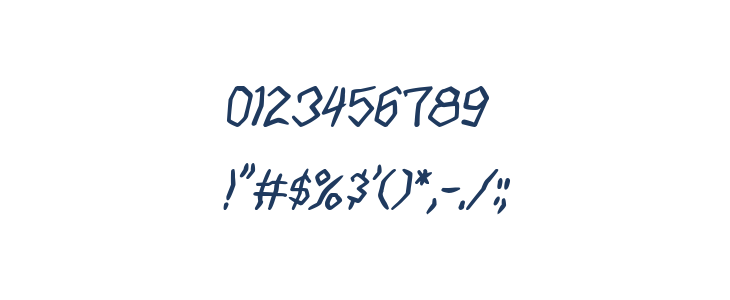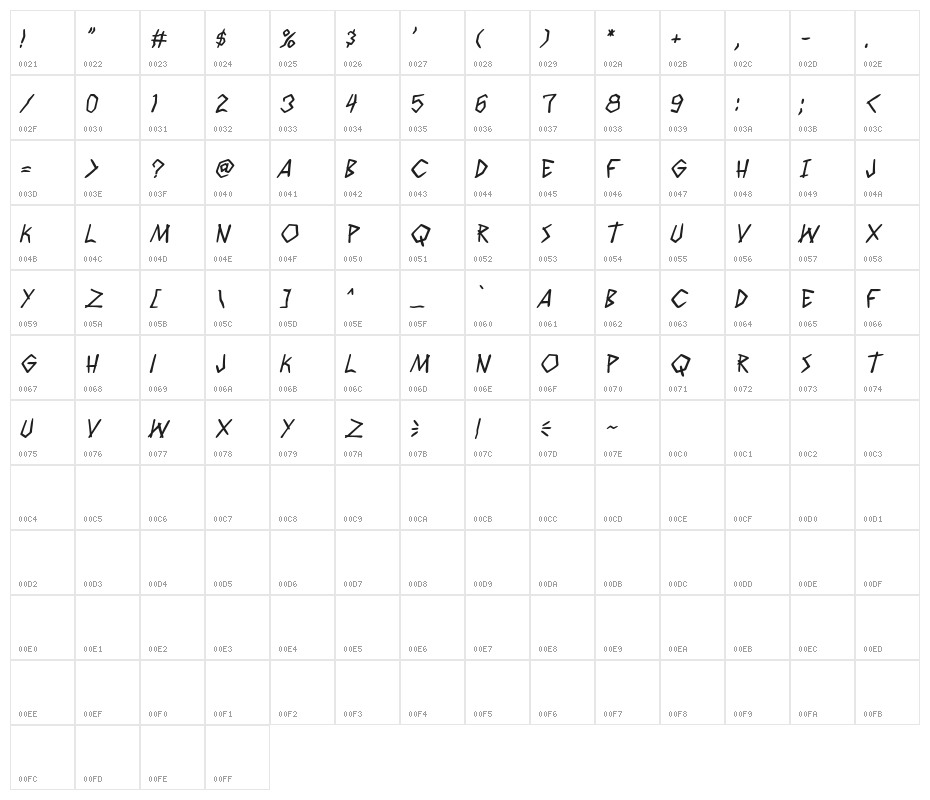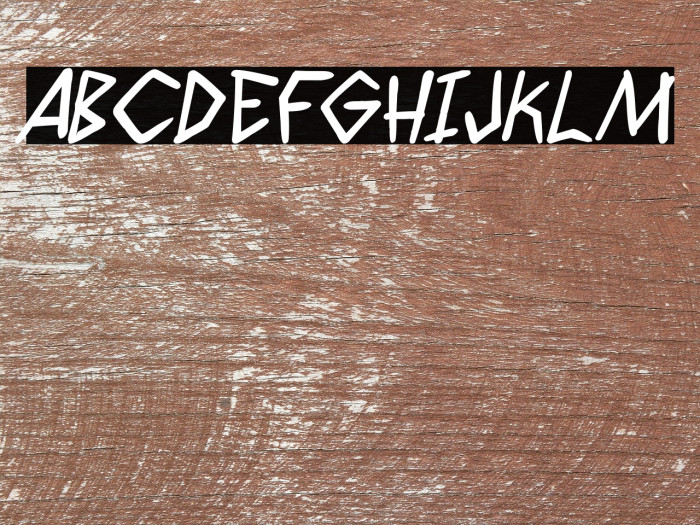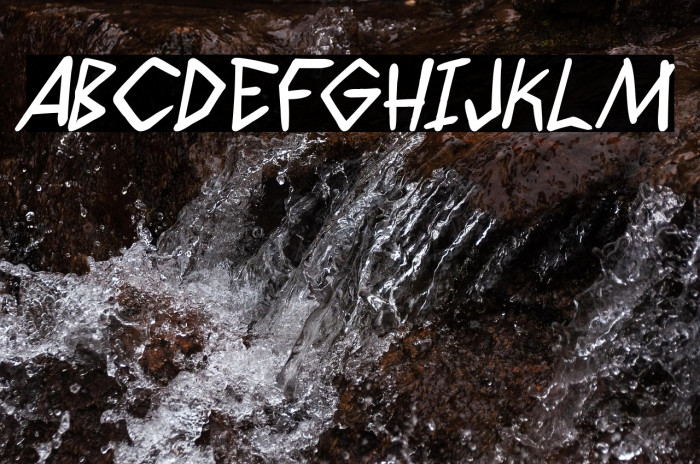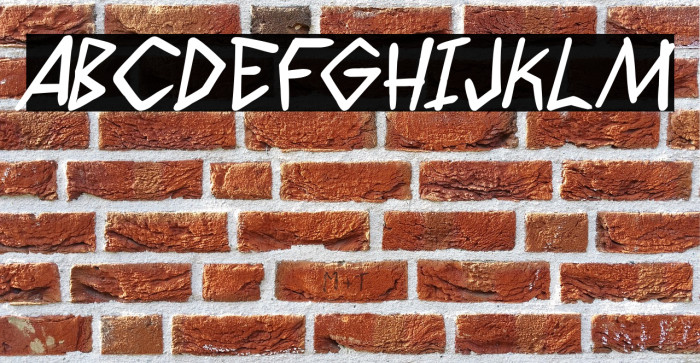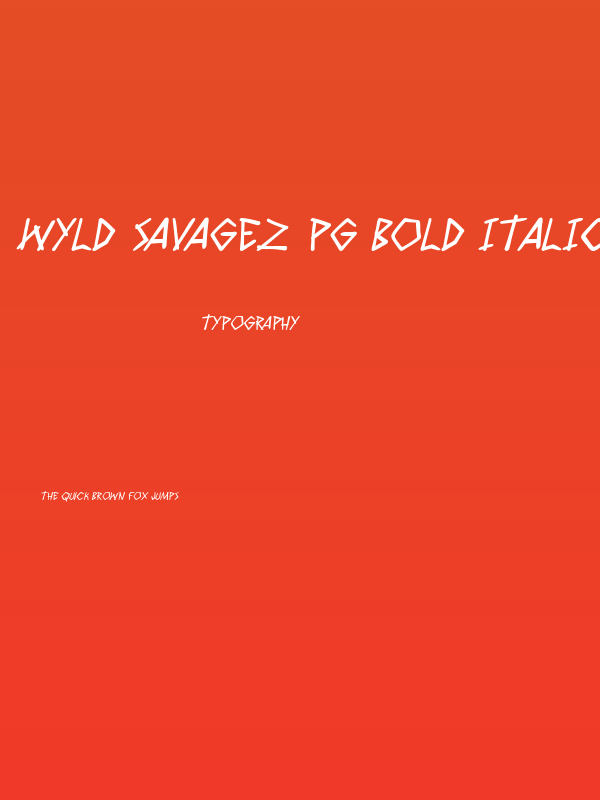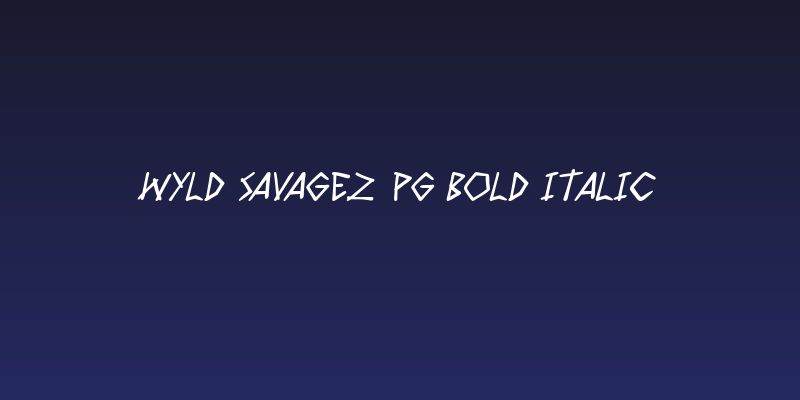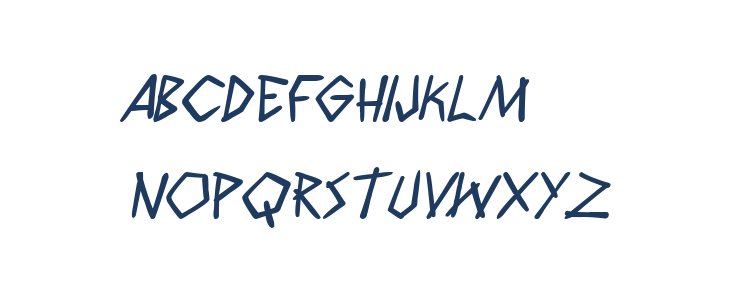
Wyld Savagez PG Bold Italic Font
Wyld Savagez PG Bold Italic Description
This font features a bold and italicized style with a handwritten, edgy appearance. The letters are slightly slanted, giving it a dynamic and energetic feel. The strokes are uneven, adding a raw and untamed character to the text. The uppercase and lowercase letters maintain a consistent style, with sharp angles and a rugged texture. The numbers and special characters follow the same aesthetic, ensuring a cohesive look across all text elements. This font is ideal for projects that require a bold statement or a touch of rebellious flair.